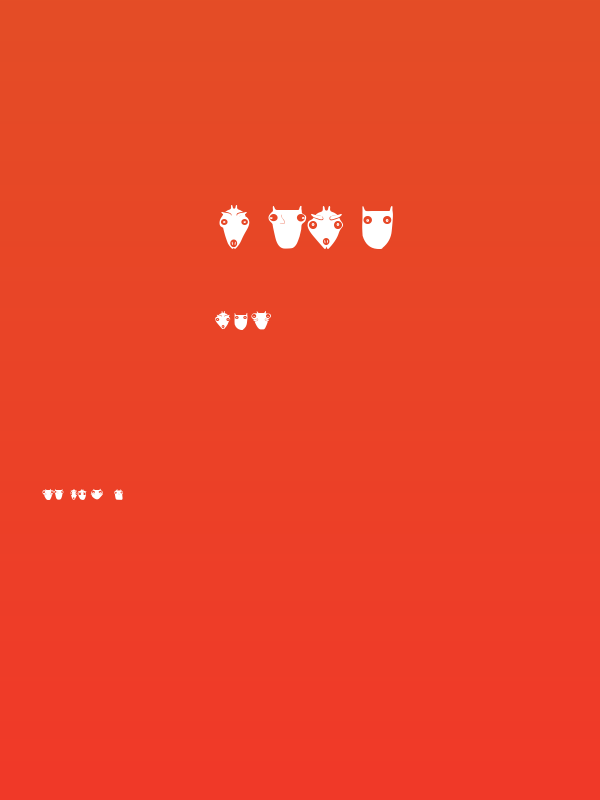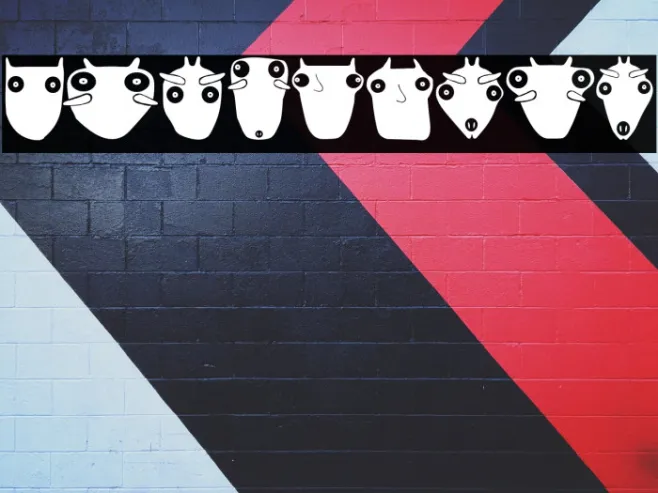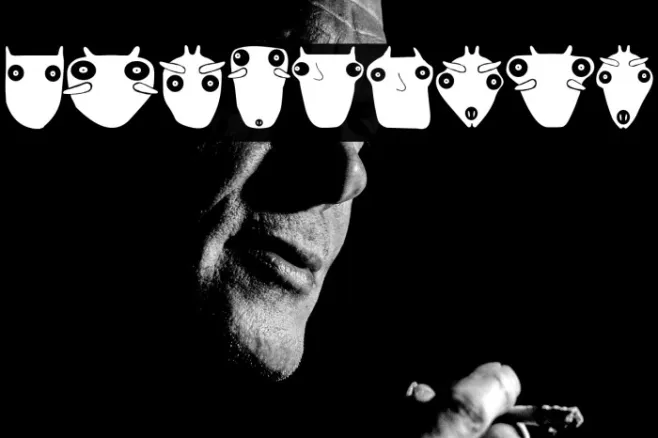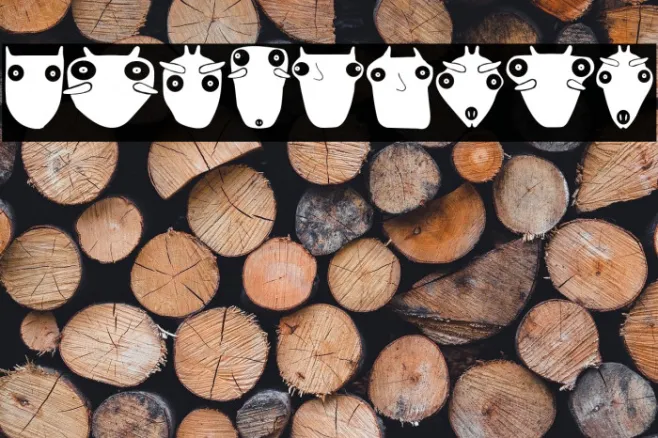
Koti Regular Font
Koti Regular Description
This is not a valid font. The image displays a series of stylized animal faces, each with unique expressions and features. These characters are more illustrative and decorative, resembling cartoon-like figures rather than traditional typographic elements. They lack the typical structure and form of letters and numbers, making them unsuitable for standard text representation.
| Use Case | Illustrations, Decorative elements |
| Proposed Projects | These designs could be used for children's book illustrations, playful graphic designs, or as decorative elements in creative projects. |